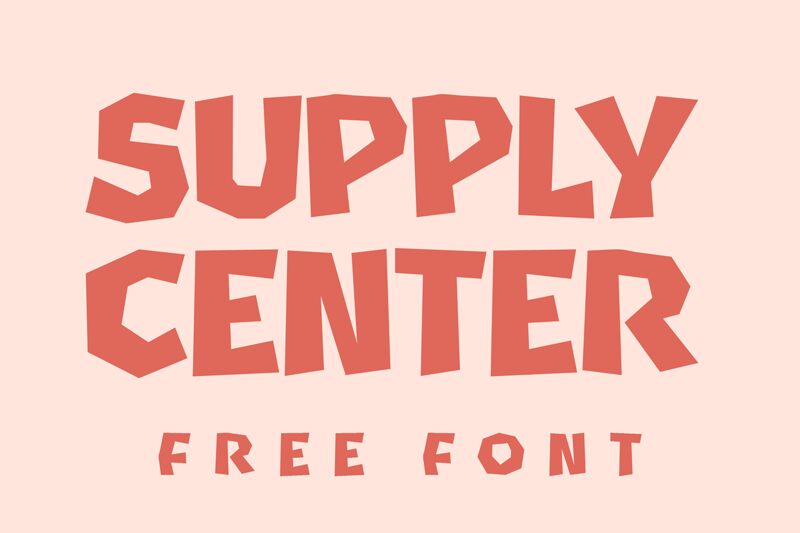
Supply Center
Supply Center is a bold, cartoon-style display font crafted by designer Niskala Huruf. With its striking black letterforms and sharp, angular edges, this font exudes a playful and energetic aesthetic. The bold weight and distinct character shapes make it an eye-catching choice for attention-grabbing headlines, logos, and other design elements that demand a dynamic, attention-grabbing presence.
The robust and confident appearance of Supply Center lends itself well to a variety of applications, from packaging and product branding to event promotions and advertising campaigns. Its bold, confident personality can help bring a sense of excitement and enthusiasm to any design project, making it a versatile option for designers seeking a font that can command attention and leave a lasting impression.